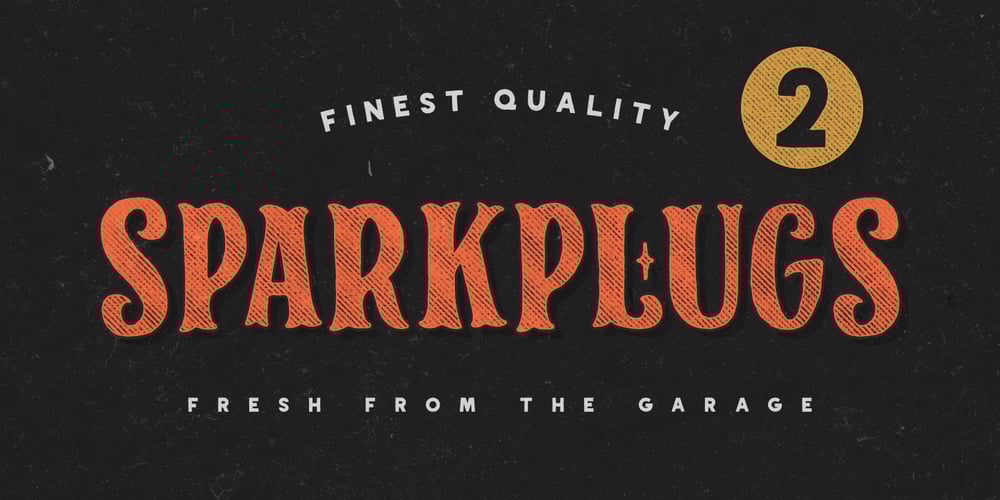
SparkPlug
SparkPlug font
SparkPlug Font Family was designed by Ian Irwan Wismoyo and published by Just Font You. SparkPlug contains 2 styles and family package options. Start from my love to vintage motorcycle culture, i am really glad living in this era when vintage motorcycle is now being such a lifestyle. People can express their self through the motorcycle, completed with the fashion and style itself to make their characters and personal branding appear stronger. It can open the new social circle, the community, to those who have the same passion to it. Based on that situation, i try to contribute to the scene with making a typeface that brings the personality of it. So please welcome, Sparkplugs. A vintage biker style font with the strong serif style and bold body. Comes up with the sans-serif too, just in case you need a pair. Handcrafted carefully for your vintage branding, rebel fashion stuff, clothing brand, as long as they’re on it, get ready to rockin’ all the way!